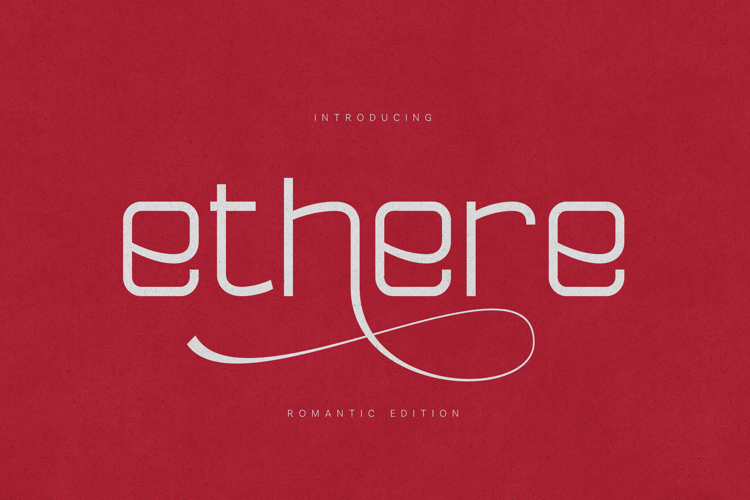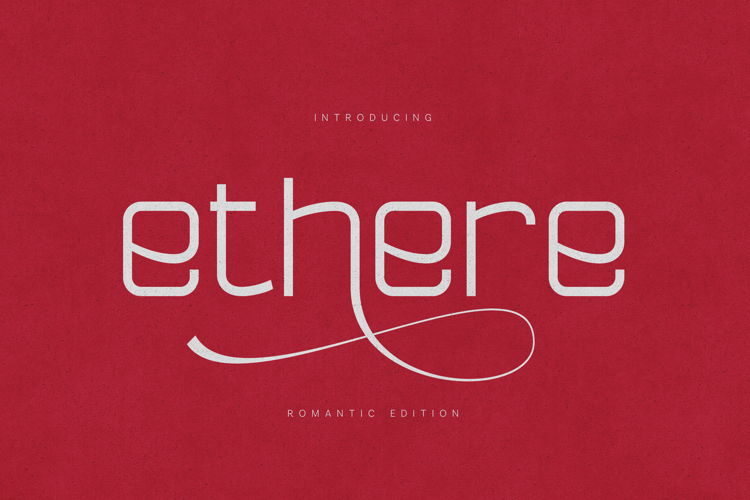
Modern Heritage Minimalist Sans Serif Font
ETHRE – Romantic Edition is a modern geometric sans-serif with smooth rounded terminals and clean architectural proportions.
Minimal at first glance — expressive on closer look.
The typeface features a unique romantic script-style alternate that introduces elegance and movement into otherwise structured typography. This contrast makes Ethre perfect for branding systems that need both clarity and personality.
It’s modern. It’s soft. It’s distinctive.
Ethre works beautifully in both bold headlines and clean identity systems.